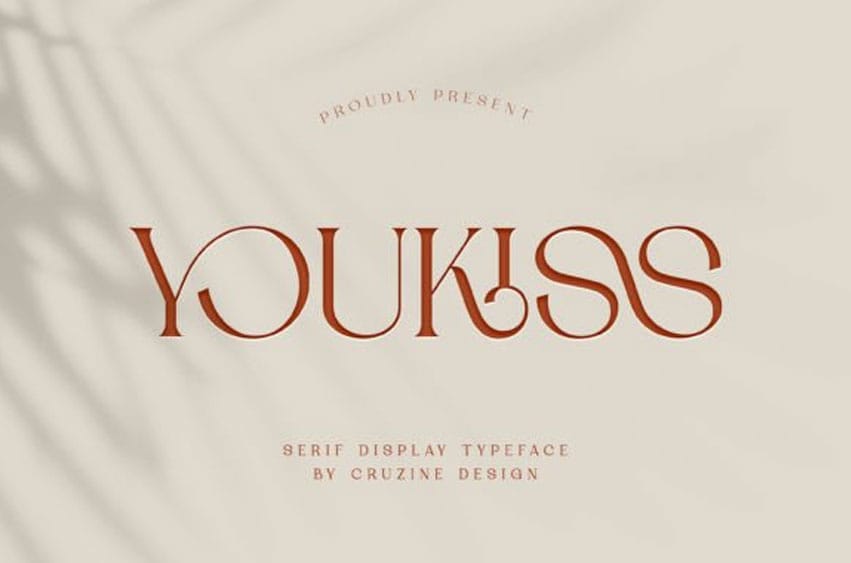
Youkiss Font is a delicate serif font with a refined and sophisticated feel. Its thin, graceful lines and subtle curves give it a sense of elegance and charm, while the fine serifs add a touch of classic style.
The consistent stroke weight and balanced letterforms create a harmonious flow of text, making Youkiss ideal for high-end fashion, beauty, or luxury branding projects.